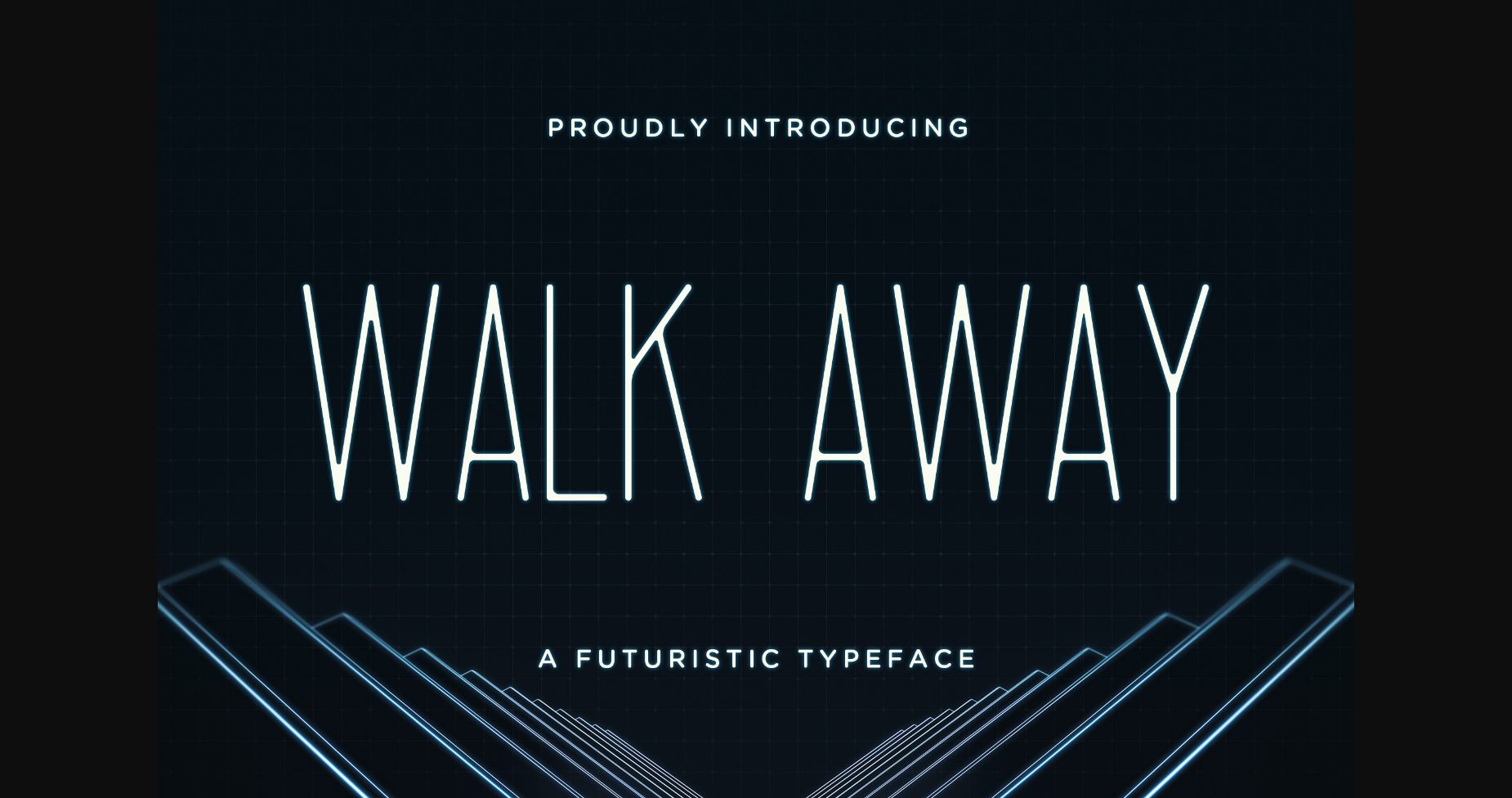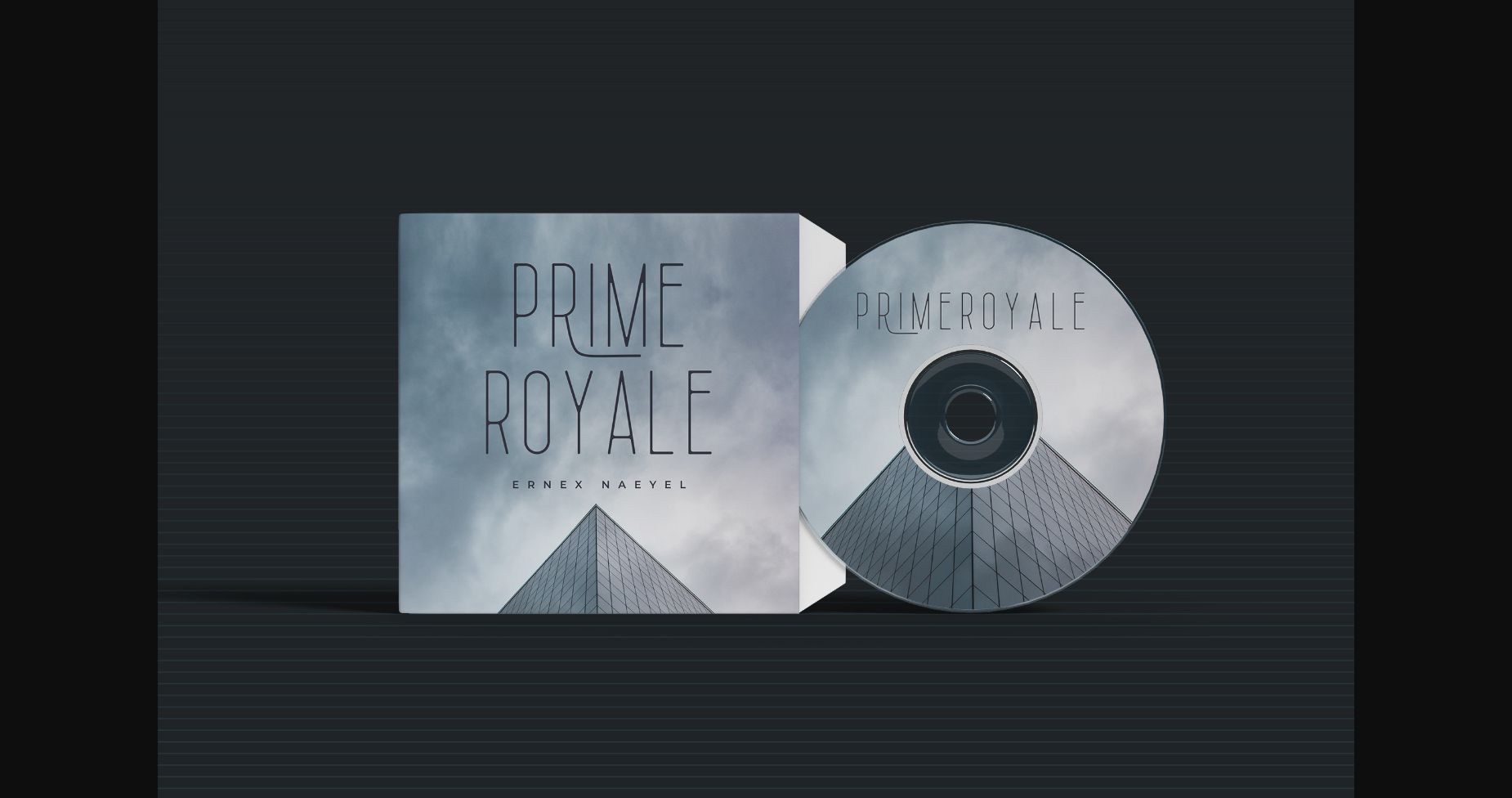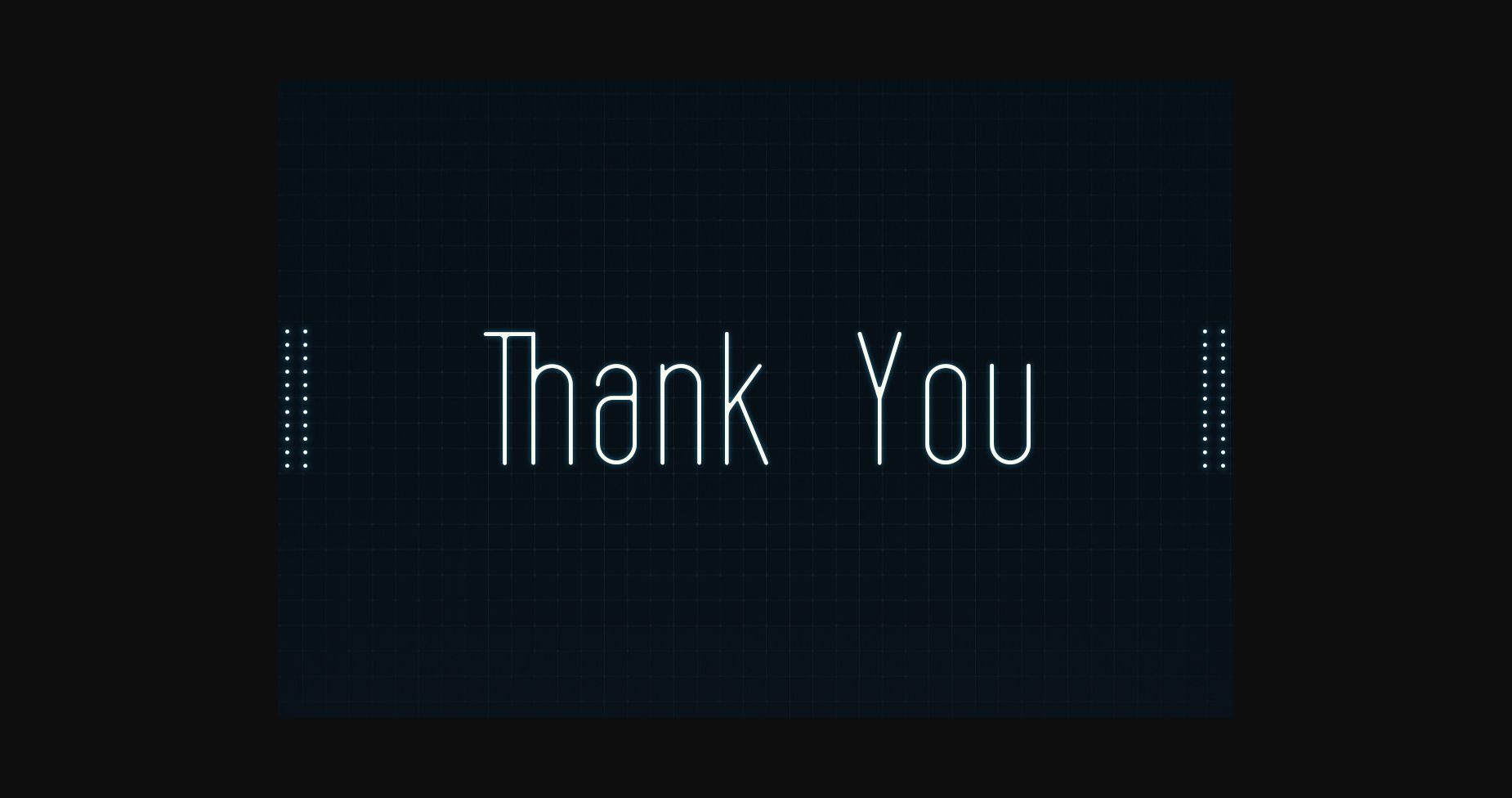
About Walk Away Font
Walk Away is a futuristic sans serif font. It is perfectly suitable for movies, documentaries, logos, watermarks, posters, headlines, games, titles, and many more projects!